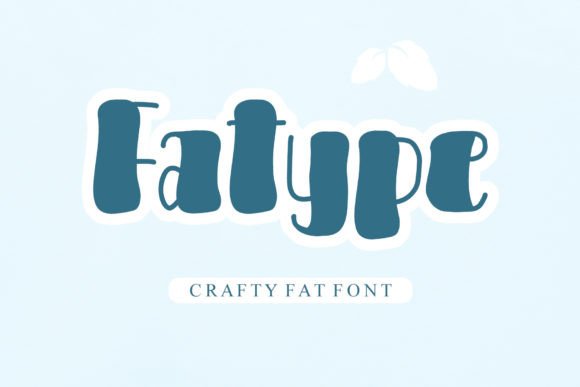
Bring Your Handmade Creations to Life with Fatype
Imagine you're in your cozy studio, the scent of fresh wax and ink filling the air as you design a new label for your artisanal candles. You want something that not only looks beautiful but also exudes warmth and charm. This is where Fatype comes in—a display font full of positivity and character, perfect for adding that special touch to your handmade products.
The Charm and Style of Fatype
Fatype is a friendly typeface that brings a unique blend of charm and style to any project. Its playful yet elegant design makes it ideal for creating eye-catching labels, headings, logos, and more. Whether you're designing a candle label or a greeting card, Fatype's visual personality can elevate your work, making it stand out and resonate with your audience.
Perfect for Handmade Labels and Stickers
One of the first things I noticed about Fatype was how well it worked for small, detailed designs. For example, when I was testing a sticker sheet for my handmade soaps, the font's clean lines and balanced spacing made it easy to read, even on tiny stickers. The font's readability is excellent, which is crucial for product labels and packaging where every detail counts.
Creative Invitations and Wedding Stationery
Designing wedding invitations and other stationery is all about setting the right tone. Fatype's cheerful and inviting style makes it a perfect choice for these special occasions. Imagine a wedding welcome board with the couple's names written in Fatype—its friendly and stylish appearance would make guests feel immediately at ease. The font's versatility allows you to create both formal and casual designs, depending on the event's theme.
Wall Art and Printable Designs
For those who love creating digital printables and wall art, Fatype is a dream come true. Its modern and approachable design can transform simple quotes and messages into works of art. I recently designed a set of printable wall art featuring inspirational quotes in Fatype, and the result was stunning. The font's ability to convey emotion and positivity made each piece feel like a personal message to the viewer.
Product Tags and Packaging Design
When it comes to branding and packaging, consistency is key. Fatype's distinct style helps create a cohesive look across all your products. I used Fatype for the tags on my handmade tote bags, and the font's playful yet professional appearance perfectly complemented the rustic, eco-friendly vibe of the bags. The font's legibility and visual appeal make it an excellent choice for product tags, packaging, and even branded mugs and t-shirts.
Font Pairing and Creative Use
To add even more depth and variety to your designs, consider pairing Fatype with a clean sans serif or a simple serif font. This combination can create a balanced and harmonious look, especially for longer text or more complex layouts. For instance, using a clean sans serif for body text and Fatype for headings and decorative elements can make your designs both functional and visually appealing.
Readability and Practical Tips
While Fatype is highly versatile, it's important to keep readability in mind, especially for smaller text and detailed designs. When using Fatype for product labels or small stickers, ensure the font size is large enough to be easily read. For printed cards and mockup previews, test the font at different sizes to find the best balance between style and legibility.
Bringing It All Together
Whether you're a crafter, a handmade seller, or a printable creator, Fatype is a premium font that can bring your creative vision to life. From charming candle labels to elegant wedding invitations, this display font offers endless possibilities for enhancing your products and engaging your audience. So, grab your design tools and let Fatype inspire your next masterpiece.